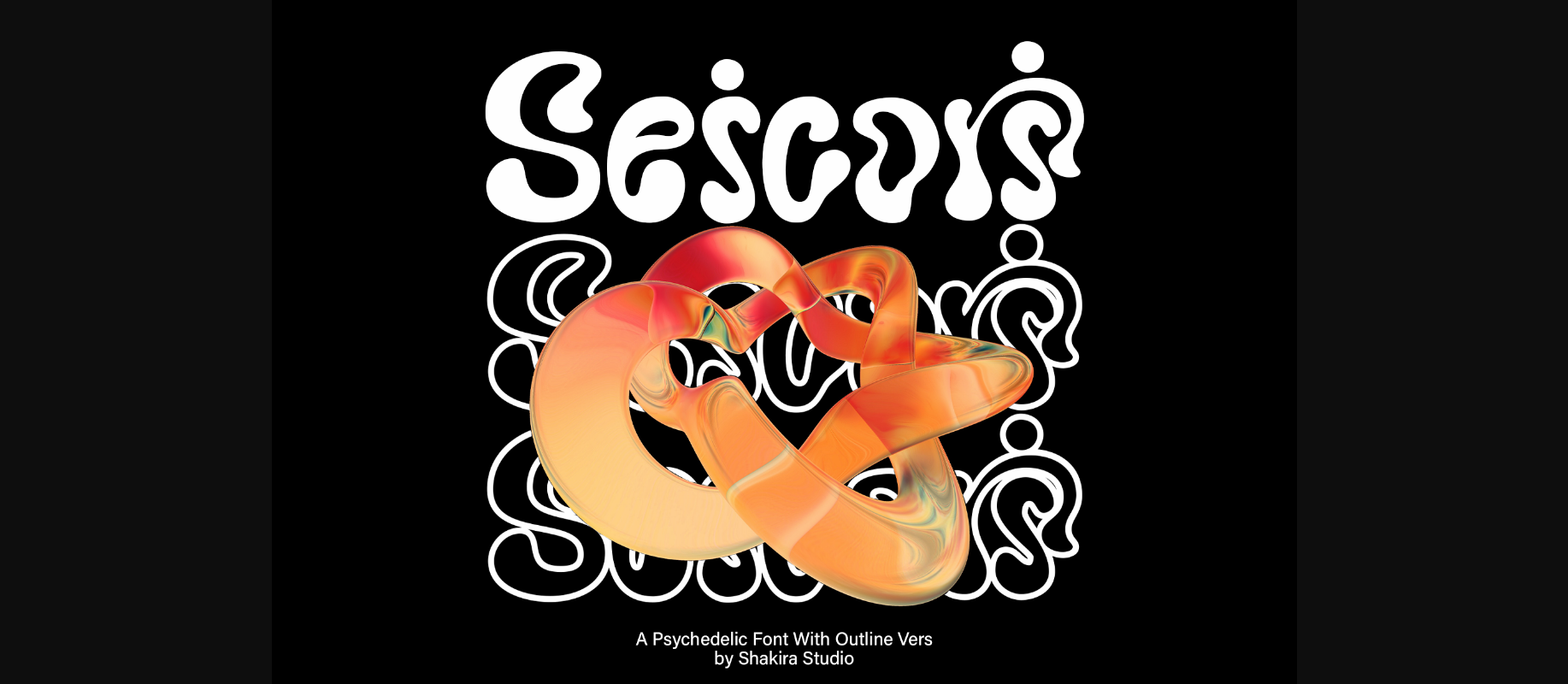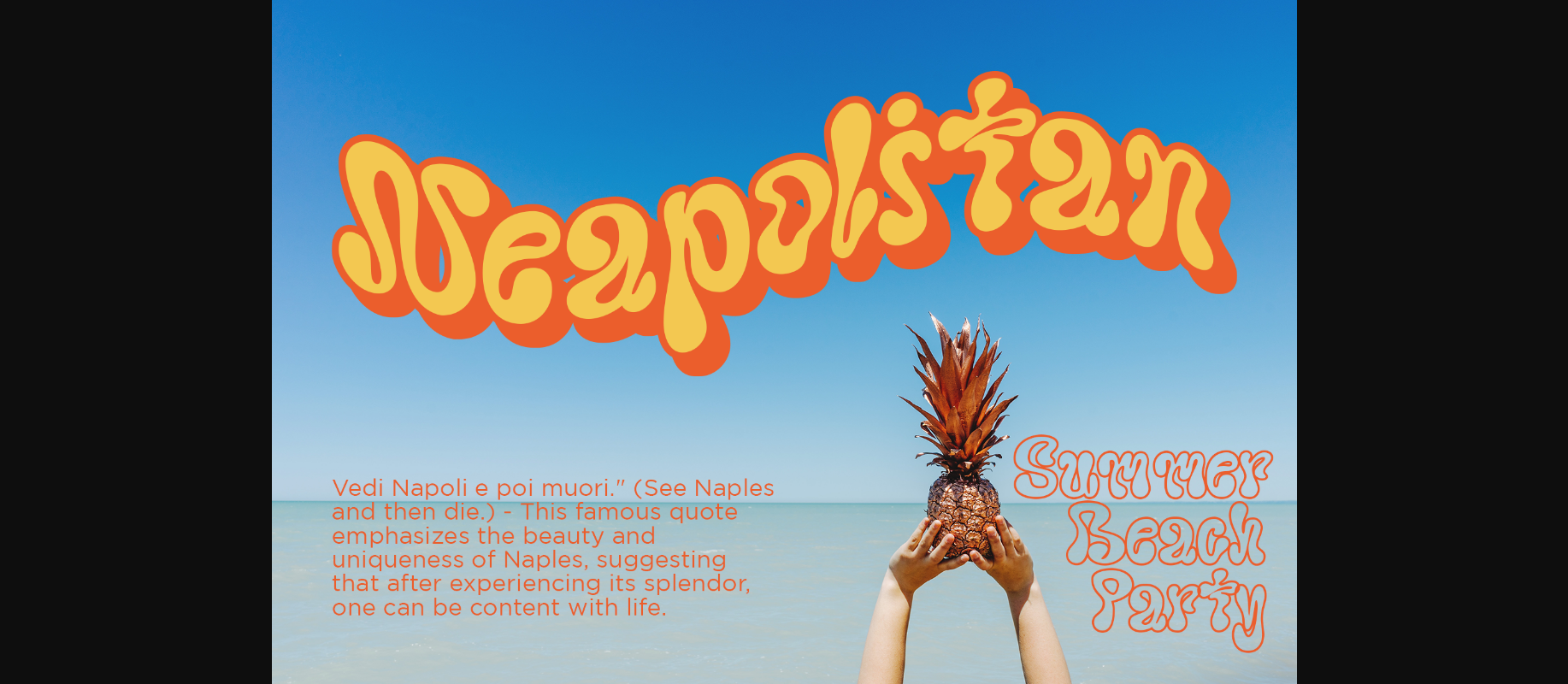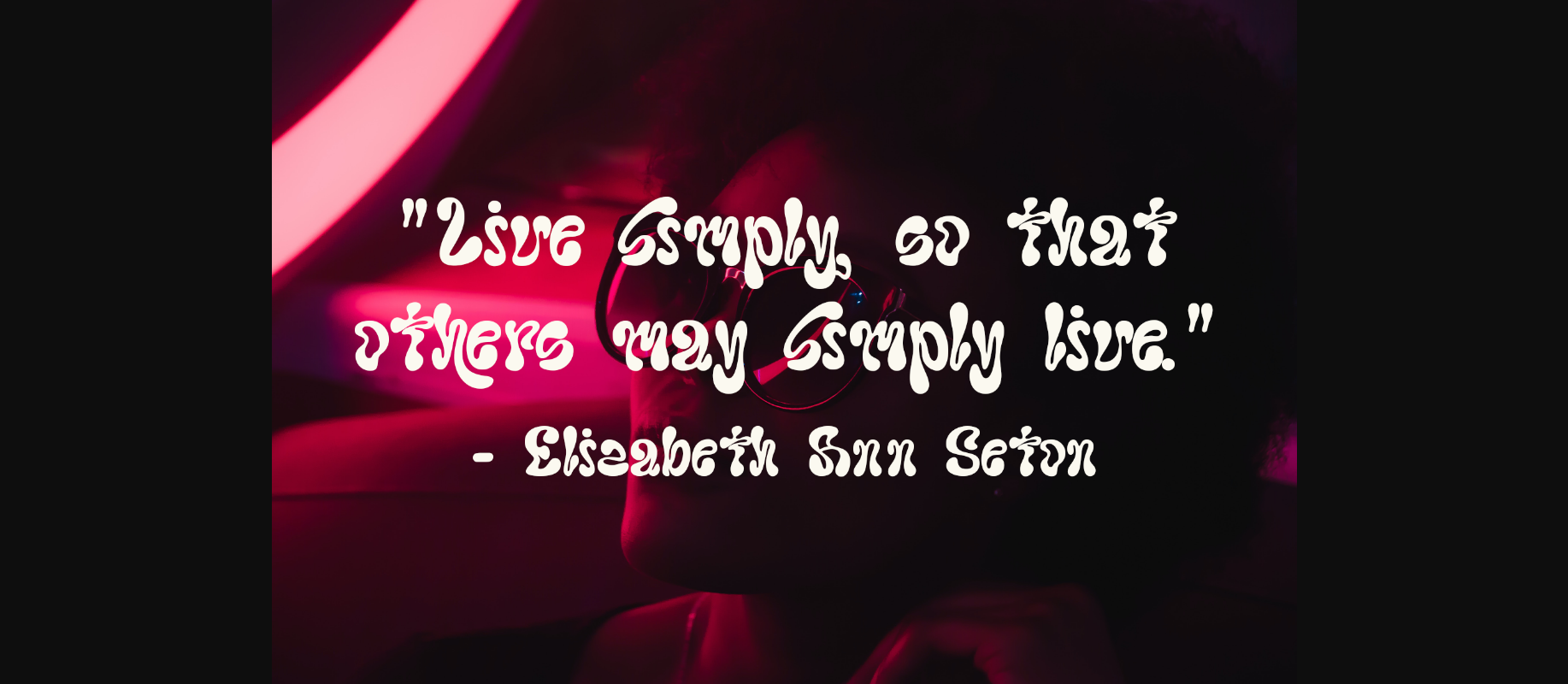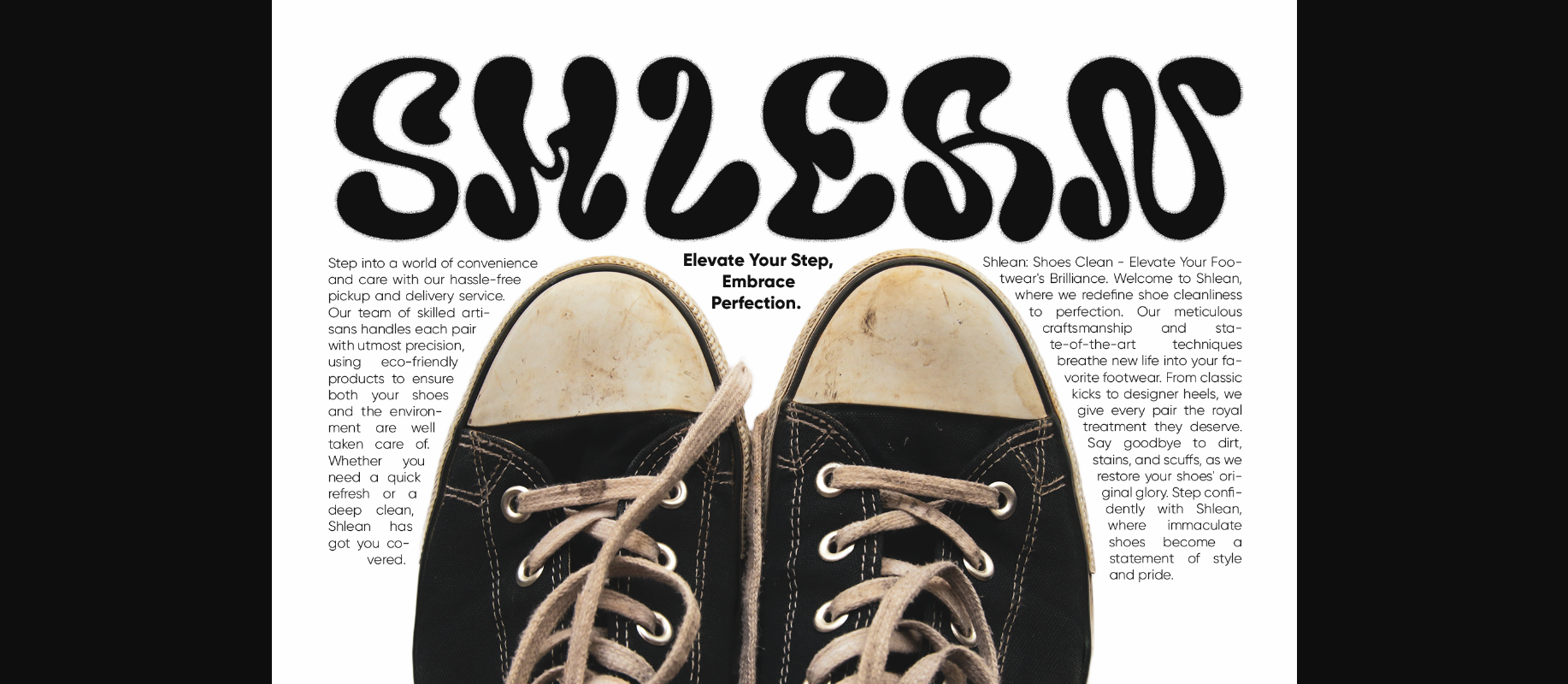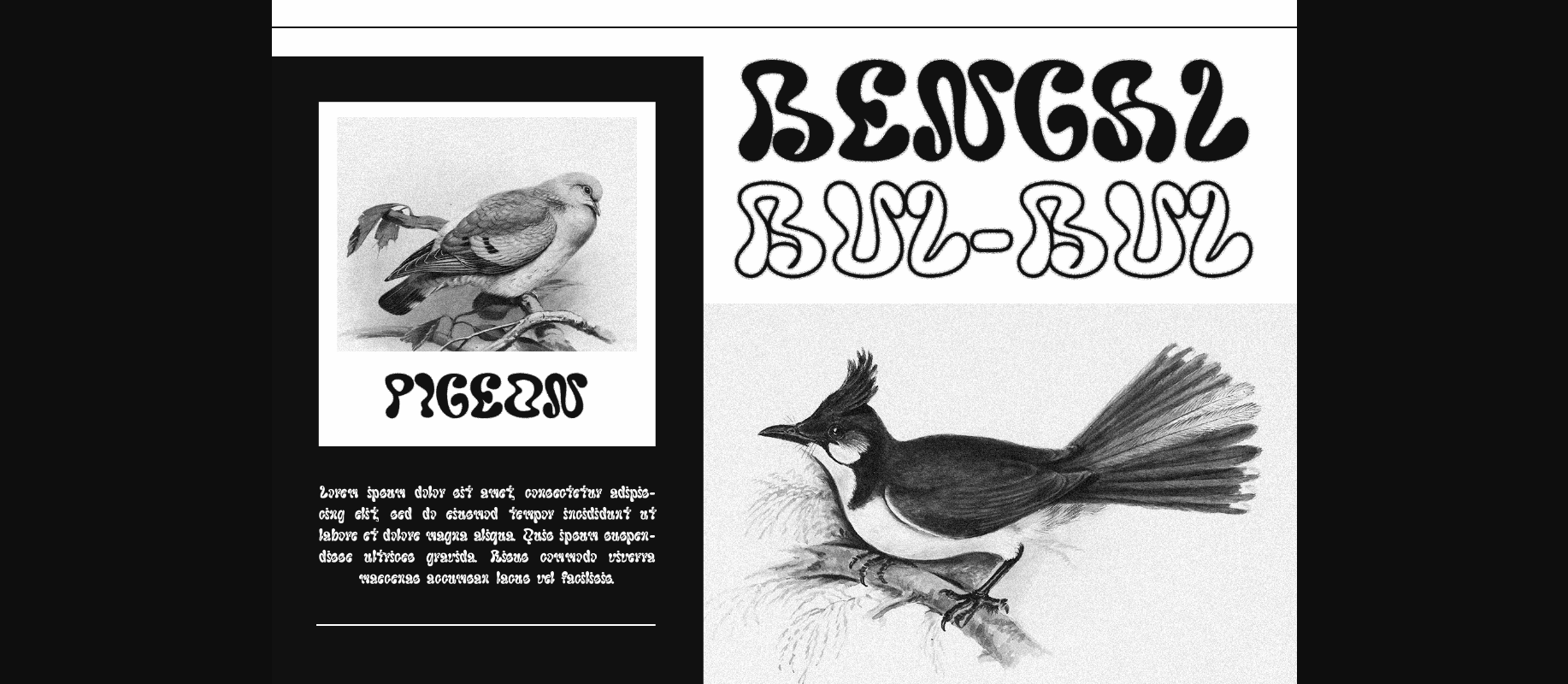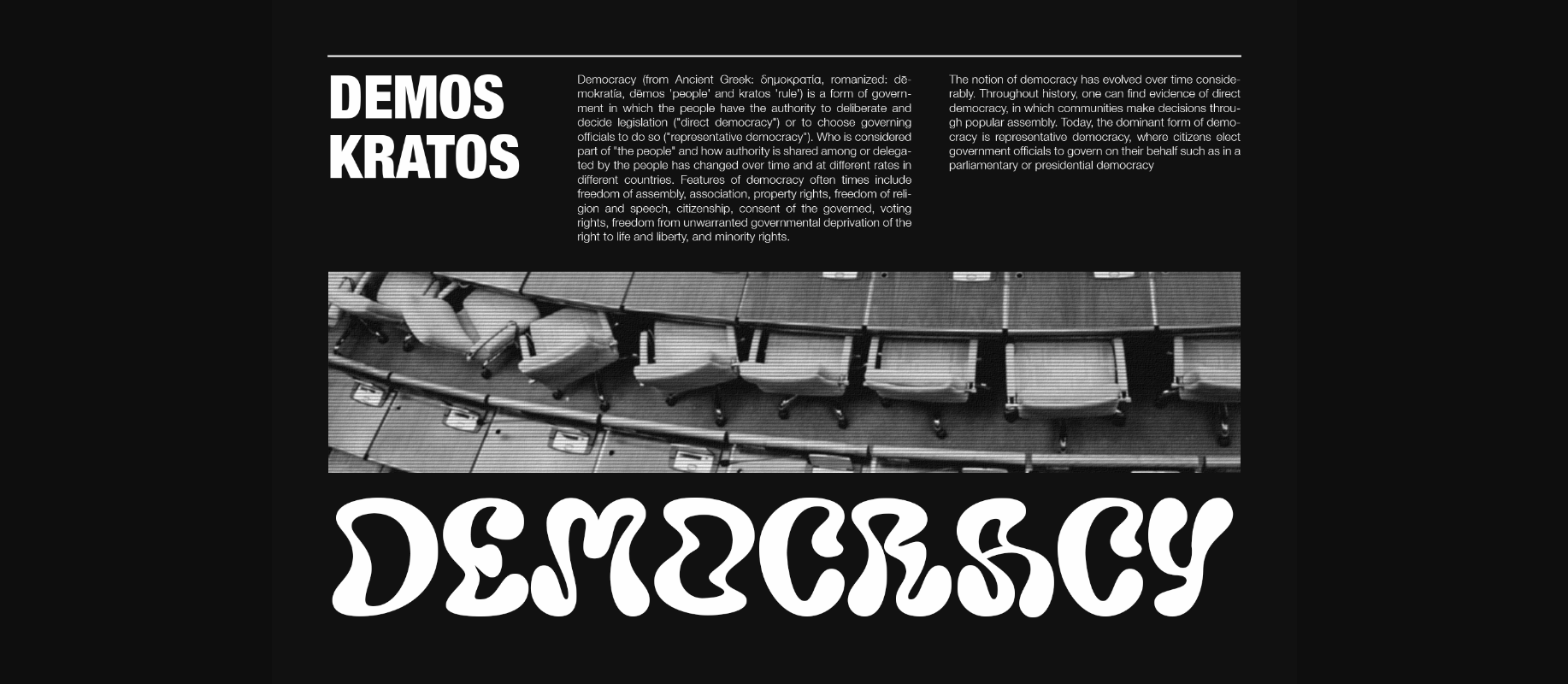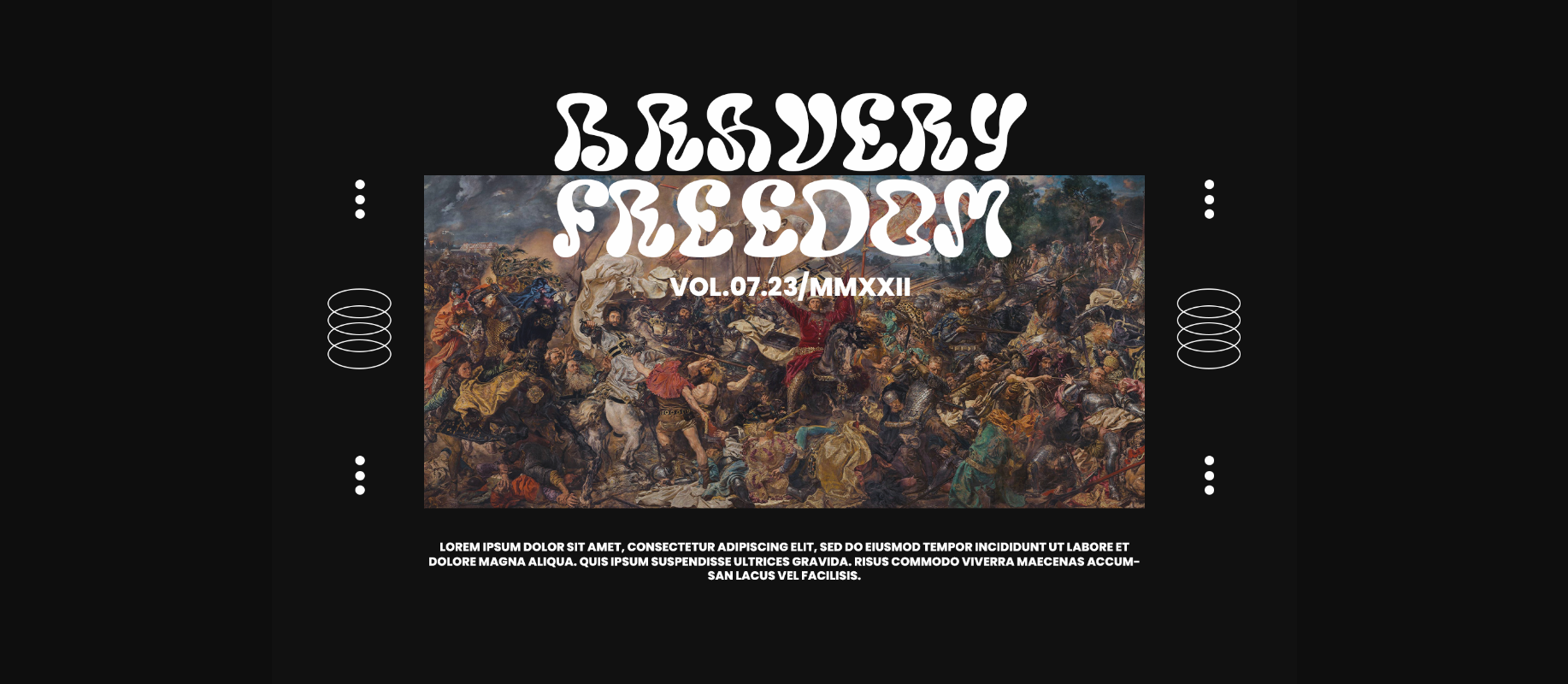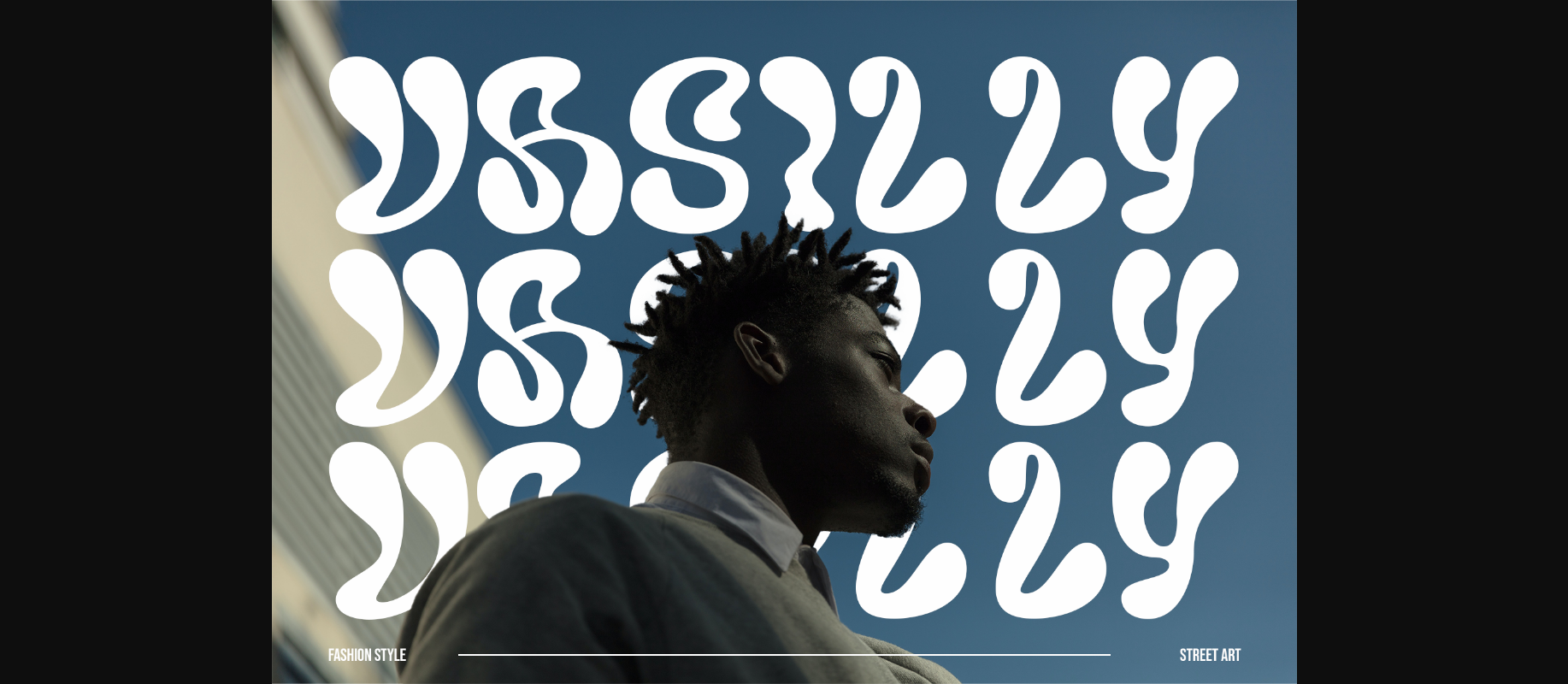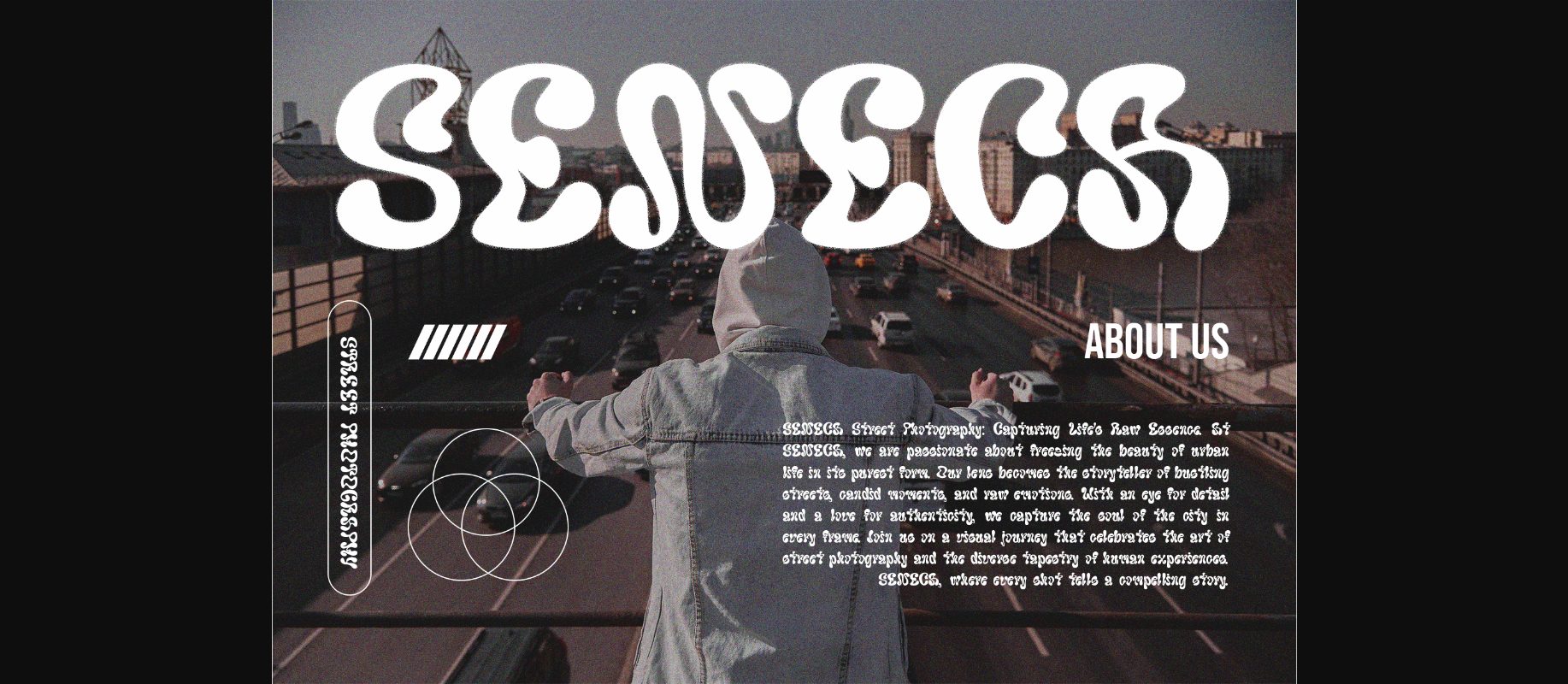
Seicori Font
About Seicori Font
Introducing Seicori, a captivating font that takes you on a journey into the realm of psychedelia. Falling under the category of psychedelic serif display fonts, Seicori offers a mesmerizing experience that transcends traditional typography. With its regular and outline versions, Seicori invites you to explore two distinct yet interconnected dimensions.